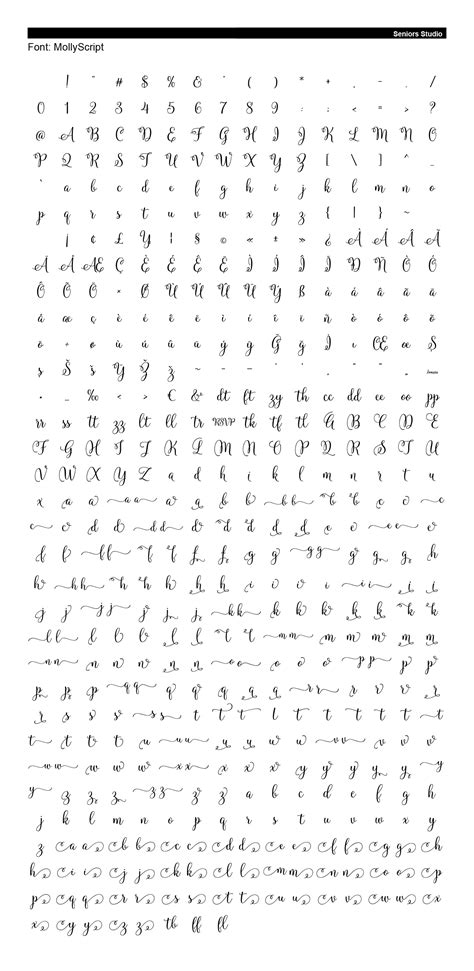
Molly Script Free Font - Molly Rose font - Molly script is modern handwritten calligraphy typeface with dancing up and down the baseline.. Home script hargery molly font. Dear visitor, you went to the site as unregistered user. Its distinct and well rounded letters make this font a masterpiece. To enable the opentype stylistic alternates, you need a program that supports. As soon as you enter your details below you will.
Script is a product of micrologic software, inc. Fall in love with its incredibly versatile style and use it to create spectacular designs! We encourage you to create a free account and login. Molly script is a dingbat, script and modern calligraphy font family. Molly script (otf, ttf) molly ornaments (otf, ttf) web font (eot, svg, woff, woff2). Molly script is modern handwritten calligraphy typeface with dancing up and down the baseline. Fall in love with its incredibly versatile style and use it to create spectacular designs! This demo font is for personal use only! Welcome to fontlot · your favorite site for free fonts. That comes with lovely alternates. And this font has given pua unicode (specially coded fonts). Works perfectly for logos, fashion, stationery, letterpress, magazines, menus, books, invitations, wedding / greeting cards, packaging. Free fonts often have not all characters and signs, and have no kerning pairs (avenue ↔ a venue, tea ↔ t ea).
Molly script molly script is modern handwritten calligraphy typeface with dancing up and down the baseline. I know this sounds strange but i'm creating patterns for a scroll saw and having the words connected together. Home script hargery molly font. Works perfectly for logos, fashion, stationery, letterpress, magazines, menus, books, invitations, wedding / greeting cards, packaging, labels. Including initial and terminal letters, alternates, ornaments, ligatures and multiple language support.
Little molly script font is a delicate and elegant handwritten font. Little molly script font is a delicate and elegant handwritten font. Script is a product of micrologic software, inc. And this font has given pua unicode (specially coded fonts). That comes with lovely alternates.